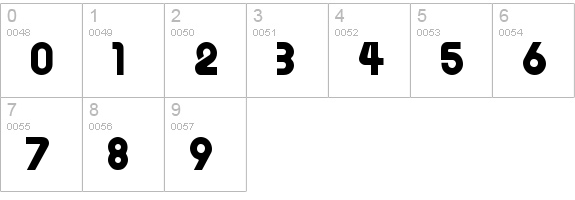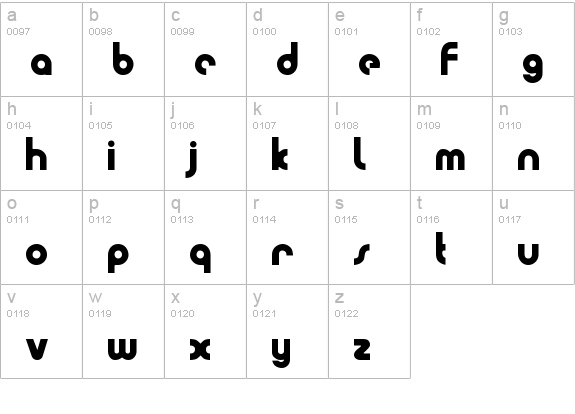
Evia Display SSi font is a stunning typeface that exudes elegance and sophistication. With its sleek lines and modern design, this font is perfect for adding a touch of class to any project. Whether you're creating a poster, logo, or invitation, Evia Display SSi font will make your text stand out. The best part? Evia Display SSi font is available for free download at FontsMarket.com. This means you can start using this beautiful font in your designs without having to spend a penny. Don't miss out on this amazing opportunity to enhance your typography with Evia Display SSi font. Download it now and elevate your design projects to new heights!